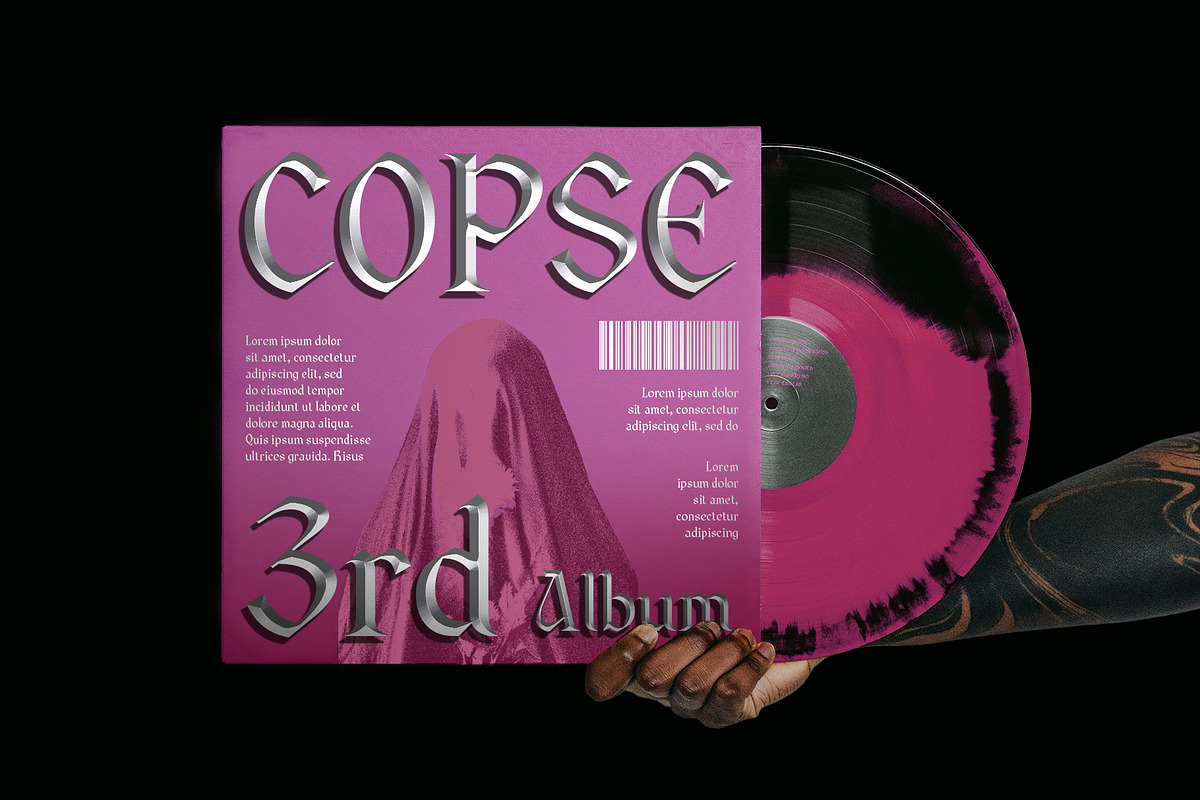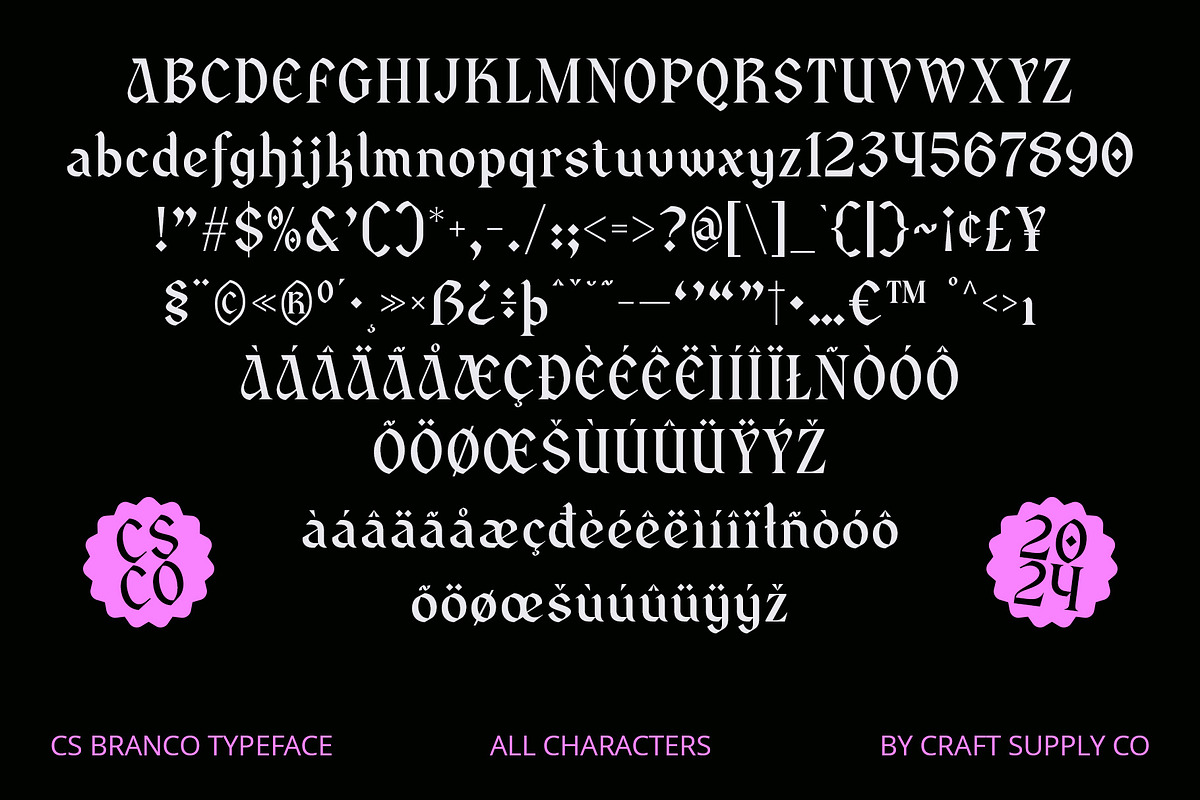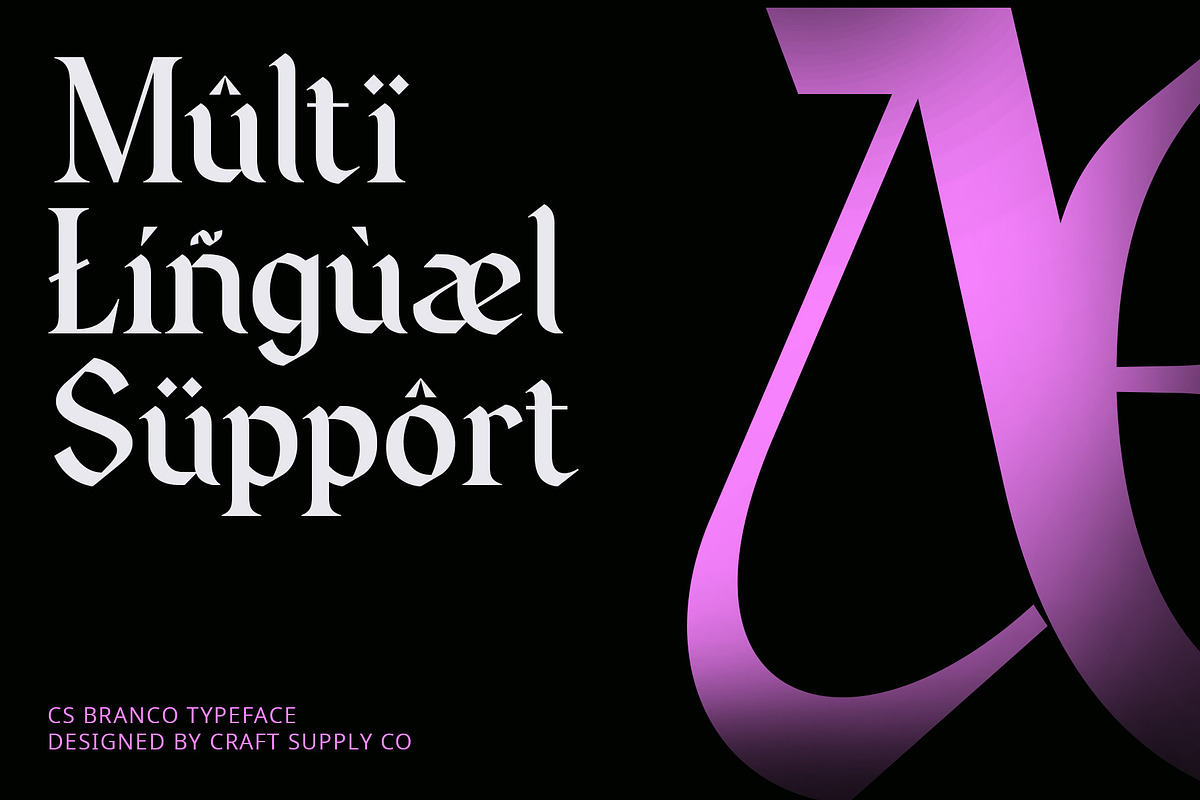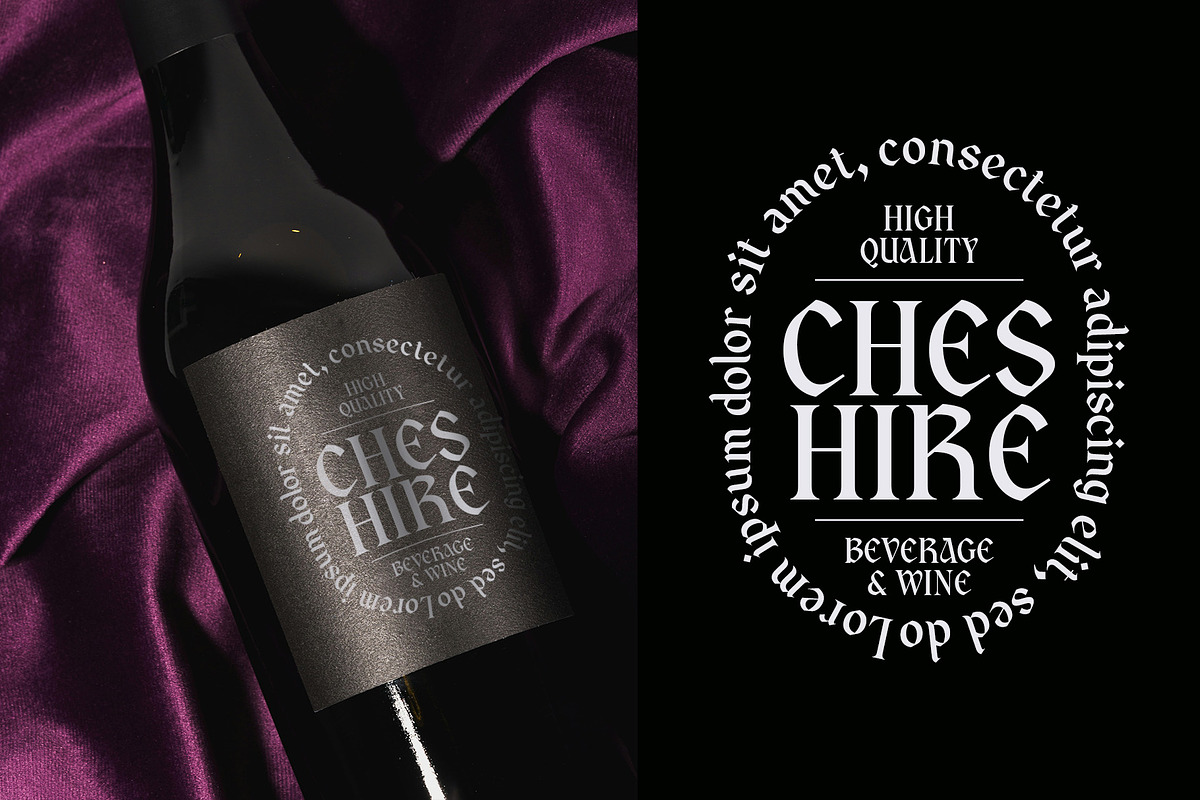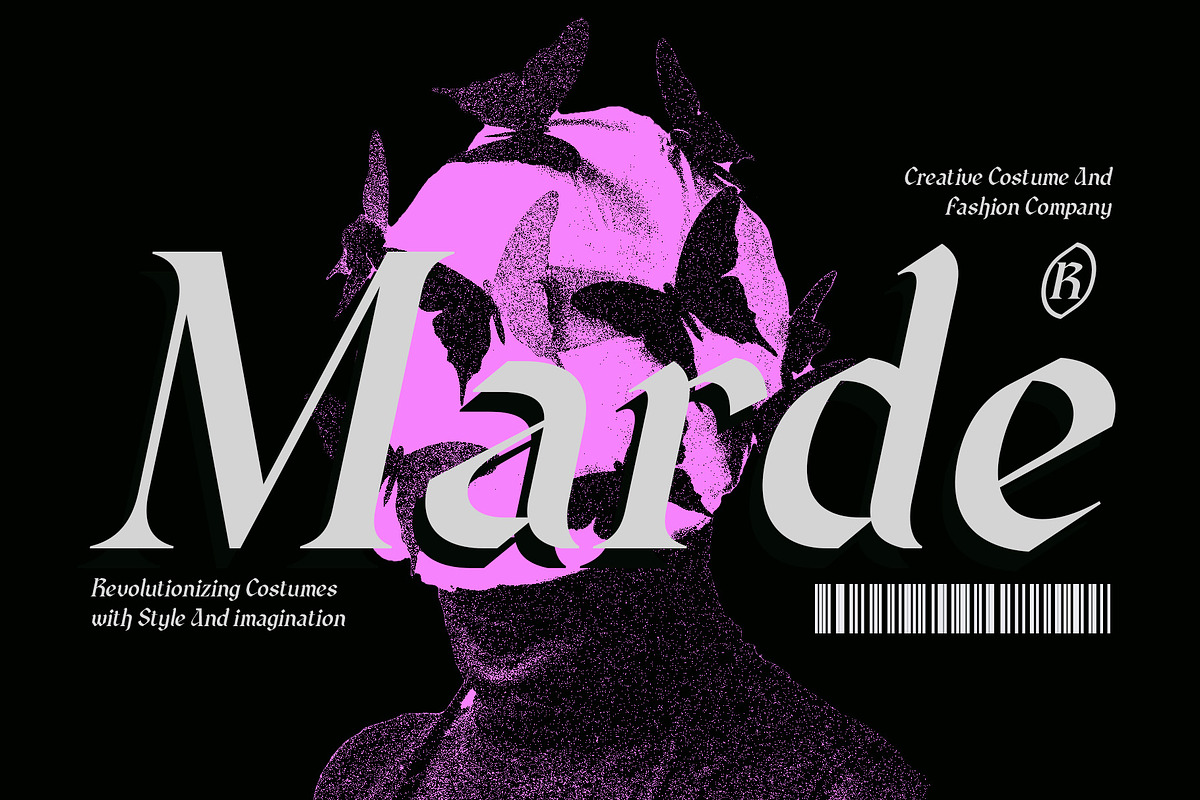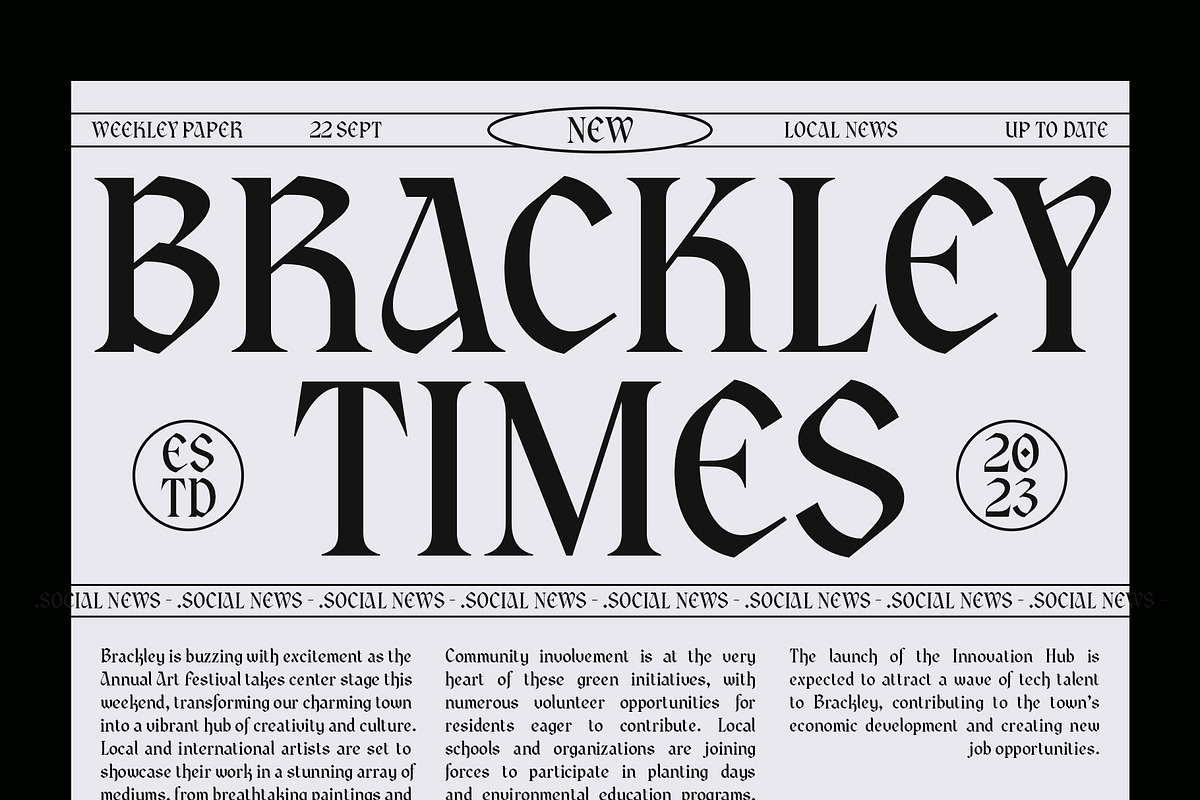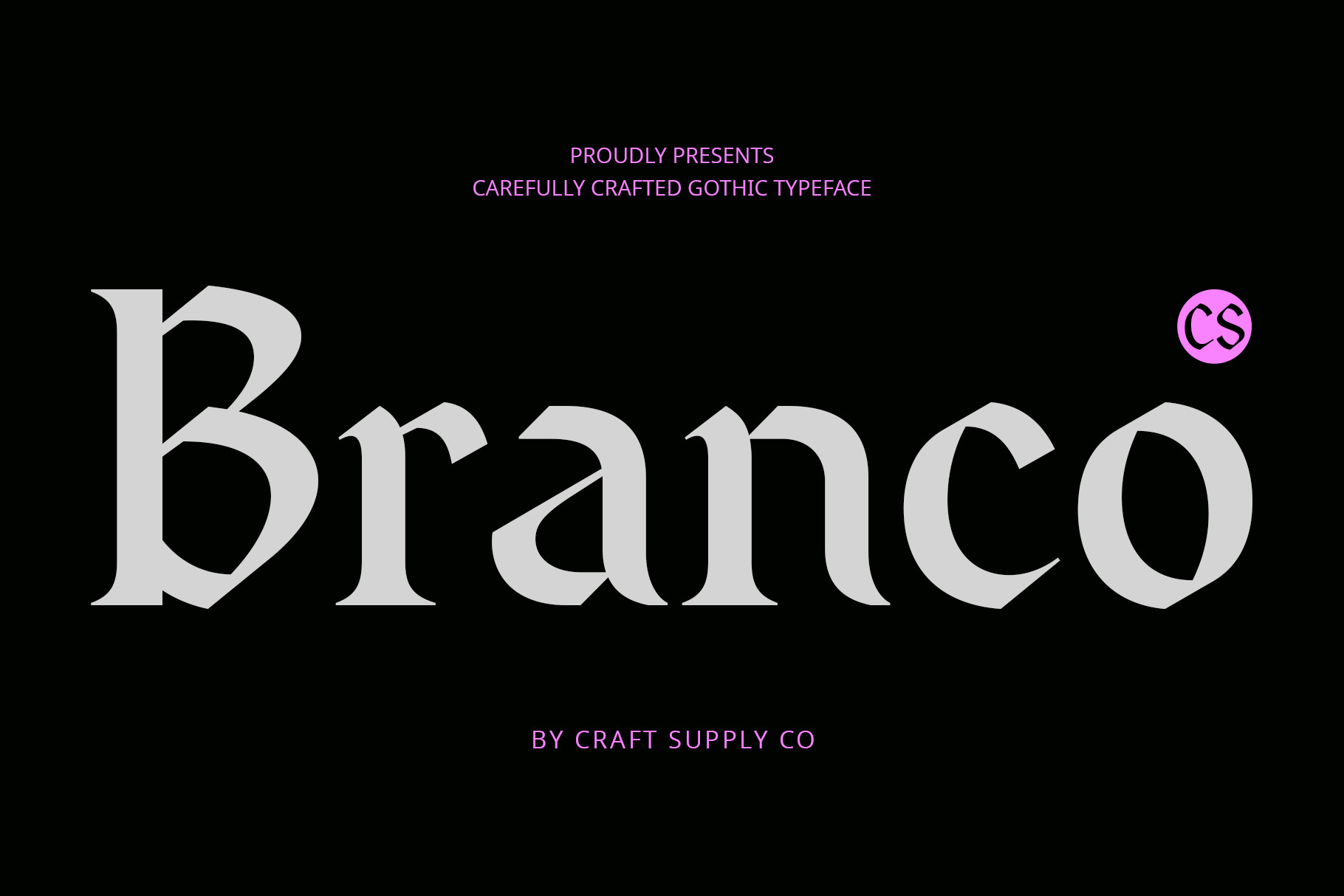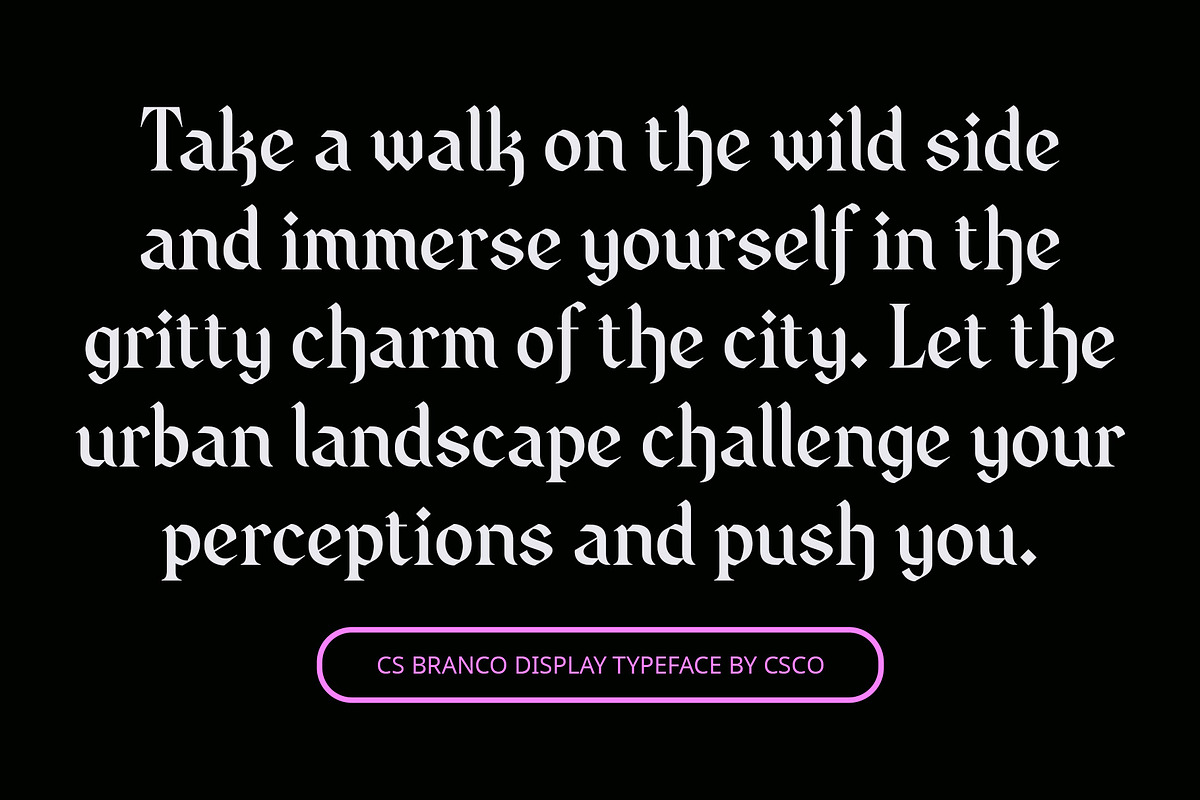
CS Branco – Gothic Font
CS Branco: Gothic Display Serif Font
Mysterious and Elegant Gothic Style CS Branco is a display serif font that encapsulates the grandeur and complexity of Gothic design. With its dramatic, sharp serifs and intricate ornamental lines, this font evokes a sense of medieval mystery and artistic elegance. Inspired by the architectural splendor of Gothic cathedrals, CS Branco adds a touch of historical sophistication to your designs.
Distinctive and Ornamental Design The font’s distinctive features include richly textured serifs and letterforms that reflect the detailed craftsmanship of Gothic artistry. The combination of prominent design elements and unconventional shapes creates a captivating visual experience, blending tradition with an artistic flair.
Ideal for Headlines and Artistic Projects CS Branco is perfect for headlines, posters, and any project requiring a deep sense of classic elegance. Its ornate and character-rich appearance makes it an excellent choice for designs that aim to convey a dramatic and engaging atmosphere, suitable for everything from high-end branding to thematic event materials.
Elevate Your Designs with Classic Grandeur Bring a touch of Gothic charm and historical depth to your projects with CS Branco. This font offers an elegant and captivating aesthetic, ideal for creating impactful visuals that stand out with a sophisticated, timeless appeal.